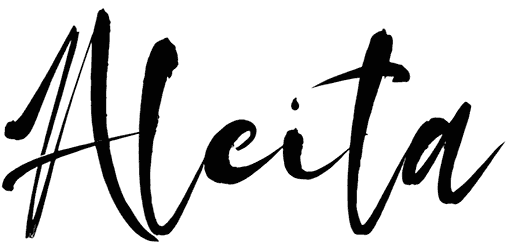
Aleita Font
Aleita is a natural, slightly illegible script with deformed letters. It’s a wonderful choice for setting the mood of refined sophistication in your listeners. Get your hands on this ninja font right away to inject some…
Aleita is a natural, slightly illegible script with deformed letters. It’s a wonderful choice for setting the mood of refined sophistication in your listeners. Get your hands on this ninja font right away to inject some flair into your logos, labels, T-shirts, and poster designs. If you look around our online shop, you’ll discover a lot of things that are equivalent to this one.